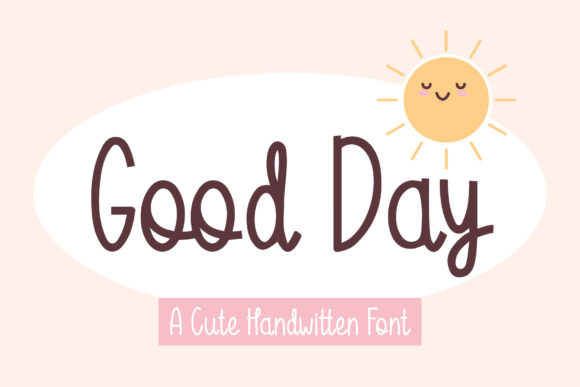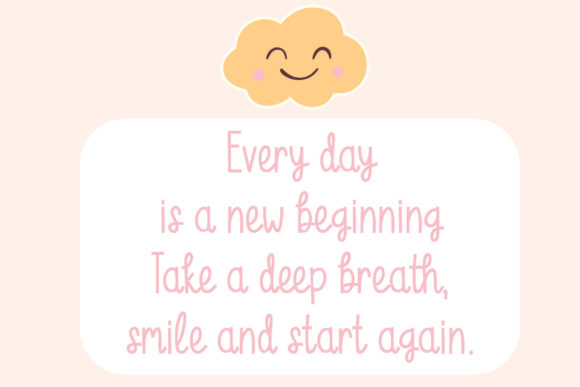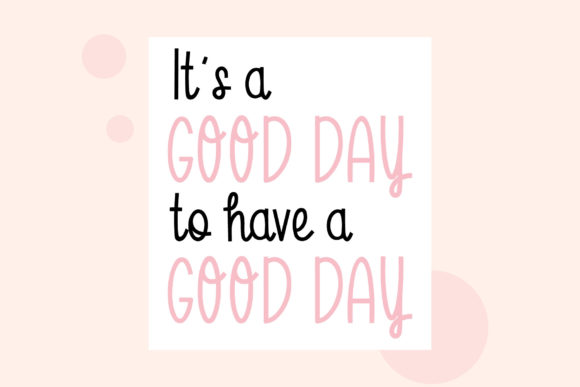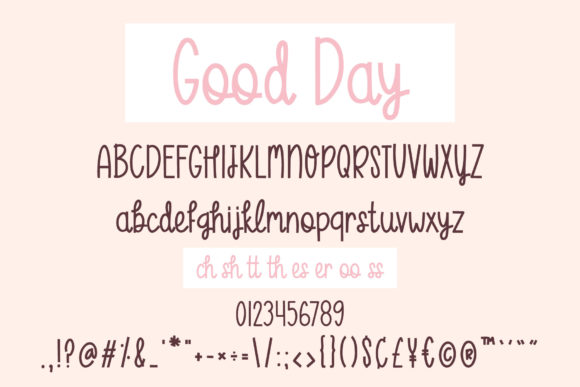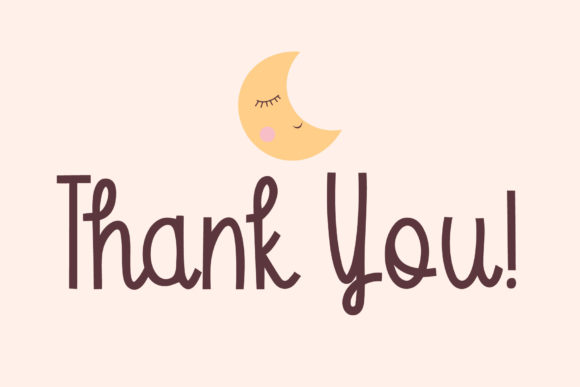
Good Day Font
About Good Day Font
Good Day is a friendly and sweet handwritten font. It can be used for various purposes such as logos, wedding invitations, headings, t-shirts, letterhead, signage, labels, news, posters, badges and so much more.